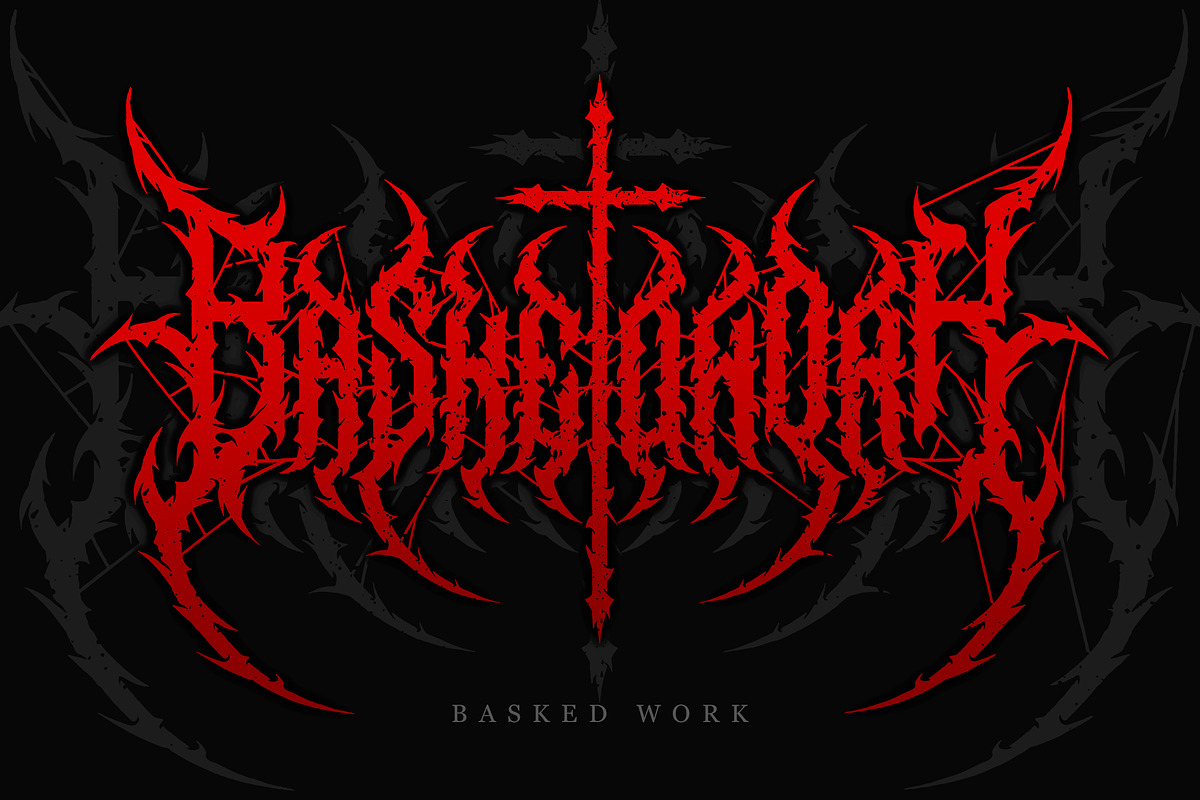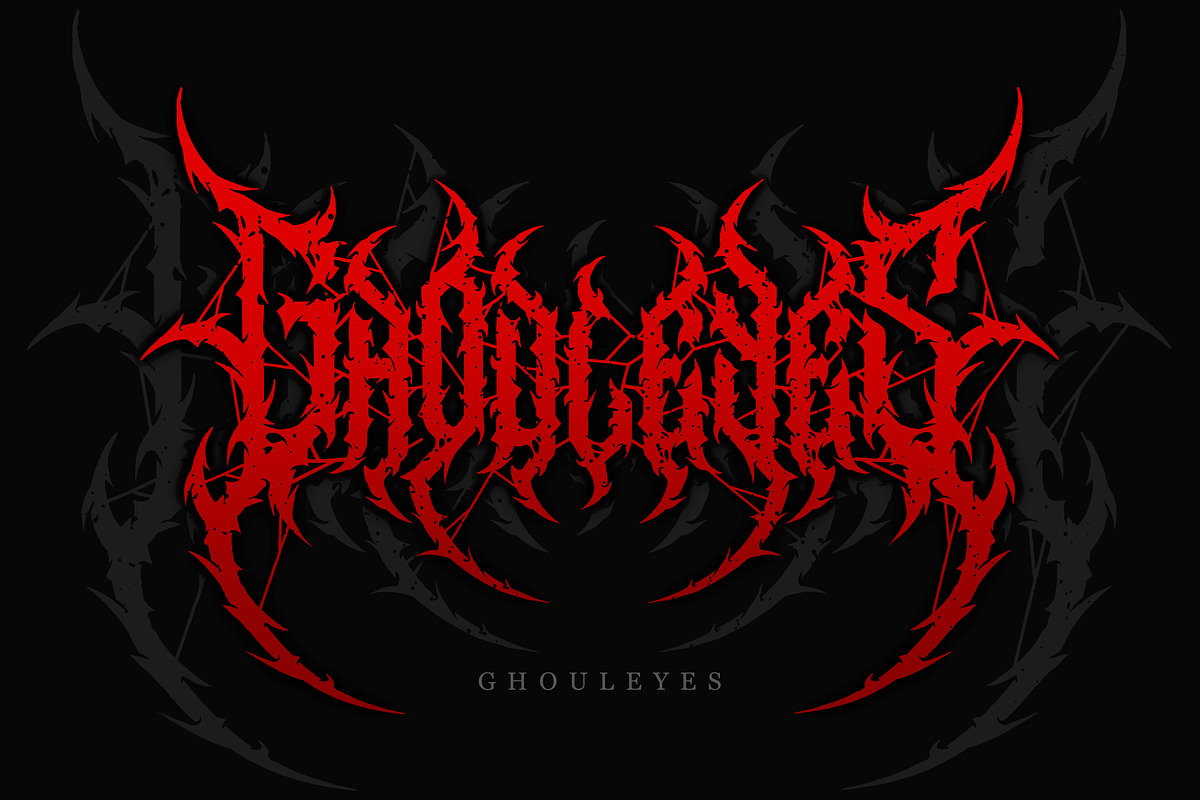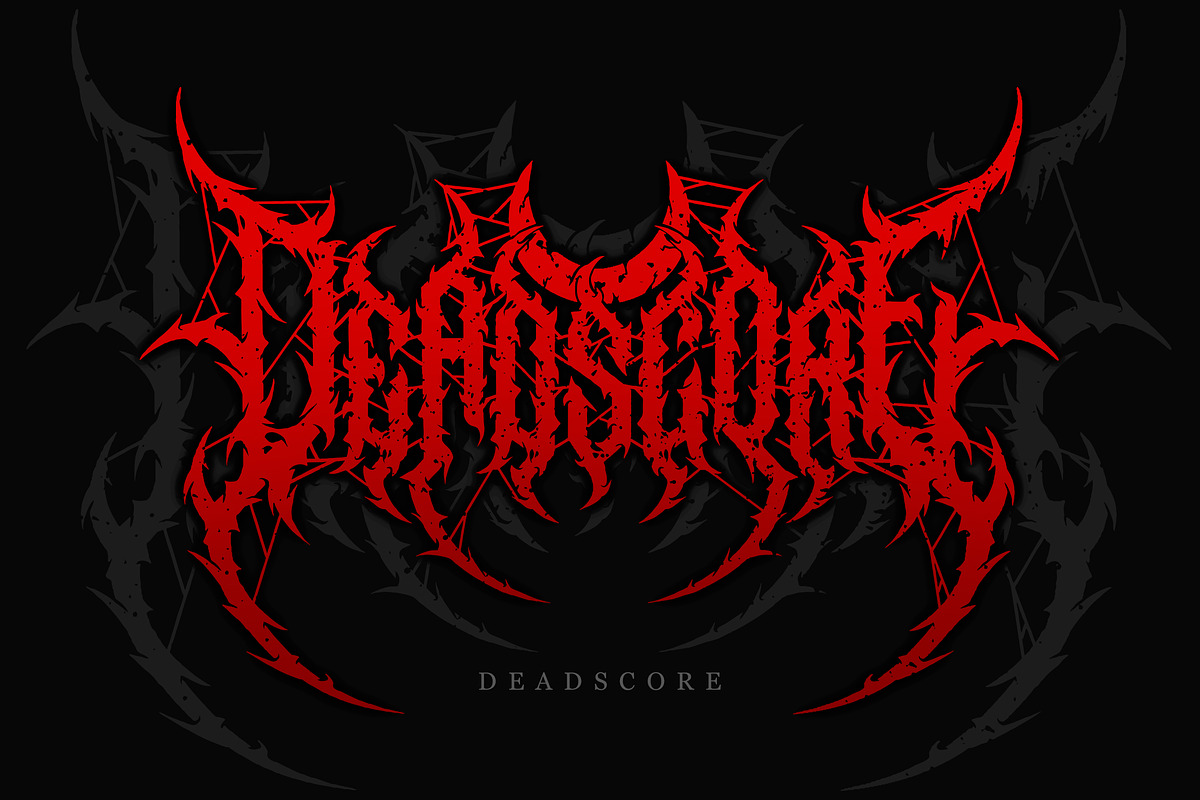
Sabersong is a carefully crafted font, which features a very heavy black metal feel. It is suitable for metal band logos, merchandise, clothing, apparel, or anything that needs a black metal feel.